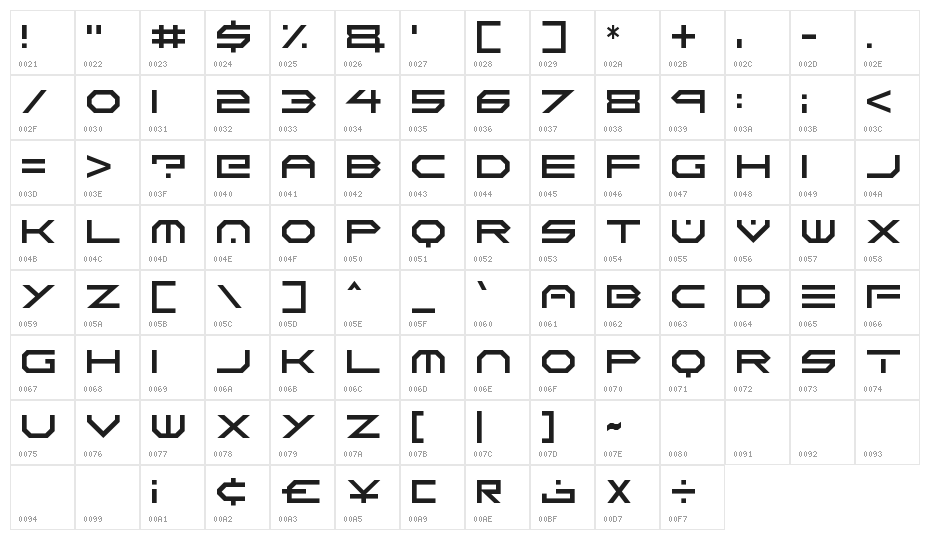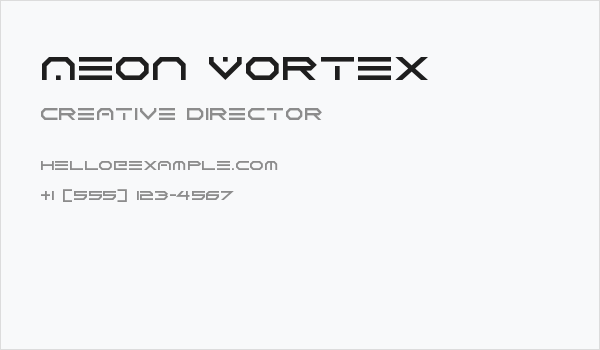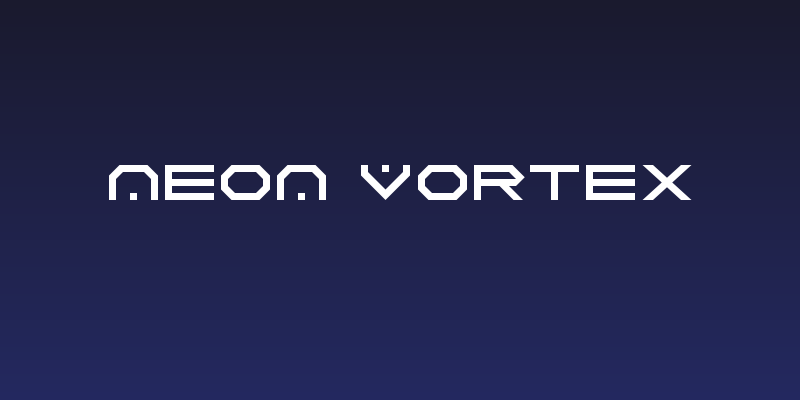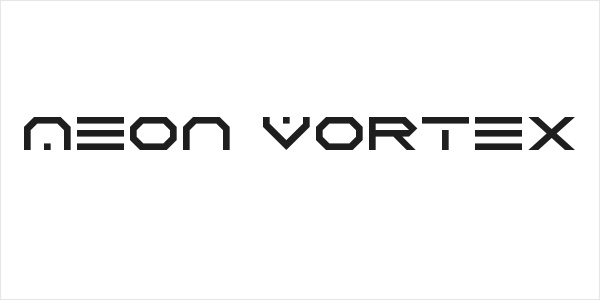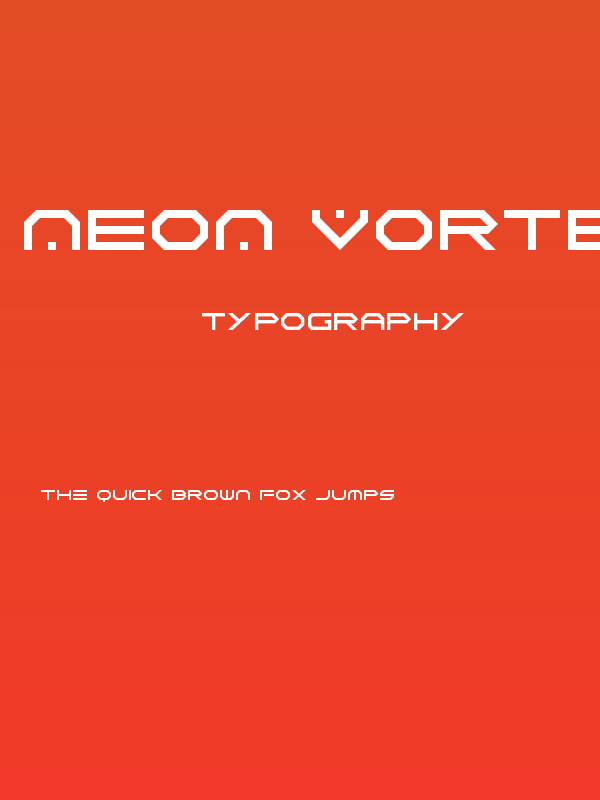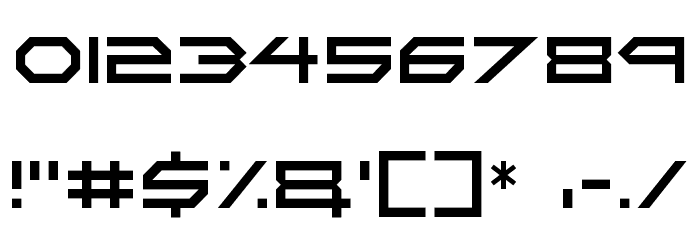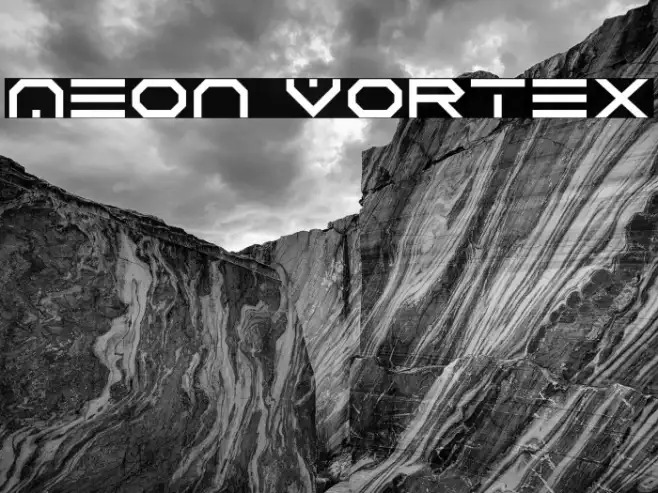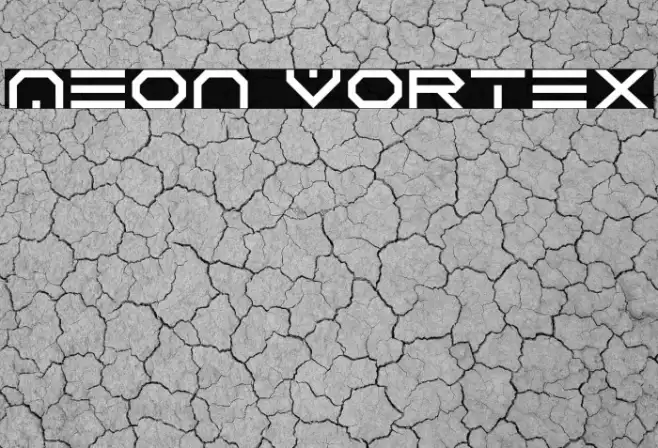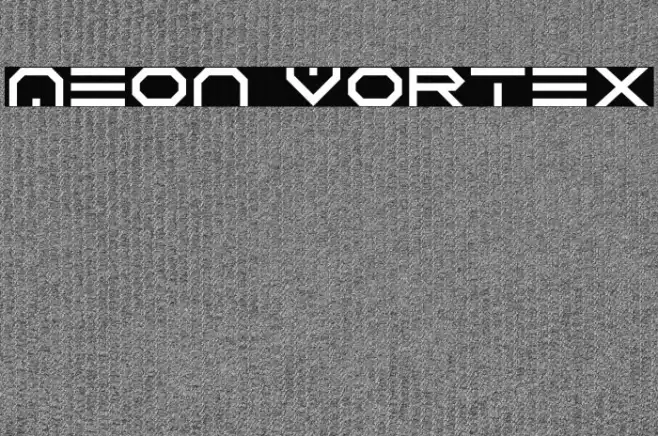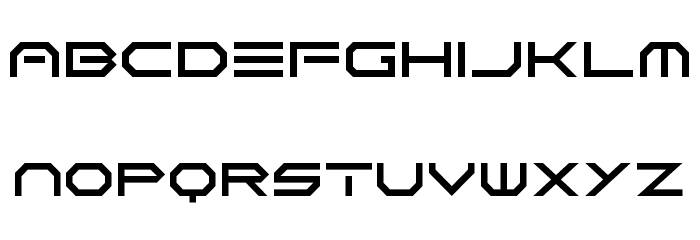
Neon Vortex Font
Neon Vortex Description
This font features a futuristic and geometric design, characterized by sharp angles and a bold presence. The uppercase and lowercase letters maintain a consistent style, with a distinct angularity that gives it a modern and tech-inspired look. The numerals and special characters follow the same design principles, ensuring uniformity across all glyphs. Its unique style makes it stand out, ideal for projects that require a contemporary and edgy aesthetic. The font's design is clean yet intricate, making it suitable for digital and print media where a strong visual impact is desired.
| Proposed Projects | Ideal for tech branding, video game titles, sci-fi posters, and digital media. |